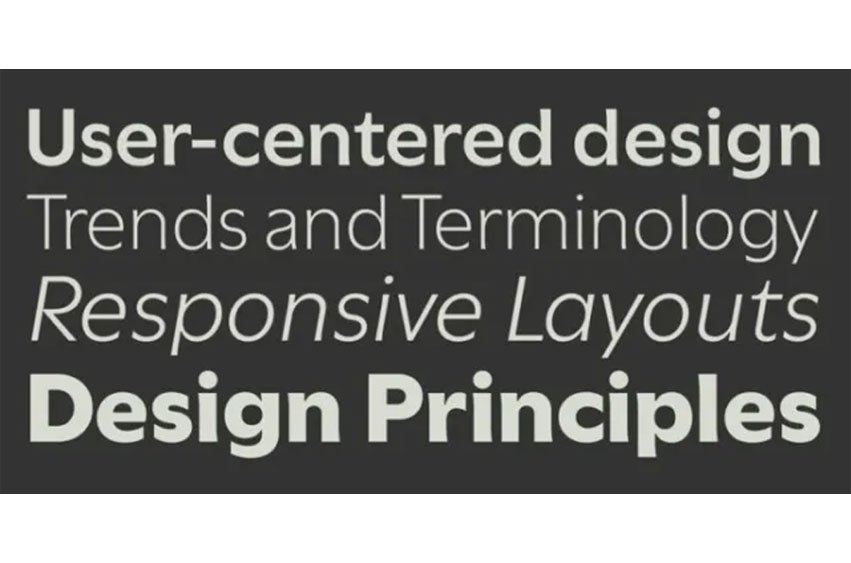
Utile Font Family: Utile and Utile Display are elegantly flared sans in two finishes suited for continuous smaller-sized text and corresponding display typography, with an overarching aim for superb legibility and optical balance.
Designed with clarity and function in mind, Utile (text) features a solid letter build with carefully weighed spacing for ongoing passages of text, and form definitions compensating for trapped ink and low pixel density. Utile Display, a modulated sans, pays tribute to the contrast of thick and thin, feeling right at home in title compositions with tighter letter spacing and re-proportioned designs.
The contrasted sans promotes a timeless elegance and lively aesthetic that comes especially to light in larger sizes. The slightly curved stem modulation of the Utile Collection, uniquely asymmetrical in its application, attempts to maintain a balancing act between swelled strokes and the absence of such, a feature in tune with open counters and vertical stroke ends, yielding a dynamic quality.
Open Type features include figures for text and tables, stylistic alternates, fractions, and more. The ample weight scale and multipurpose variety of text and display is intended, but not limited, for contemporary identity-branding, editorial and advertising for print and screen programs.